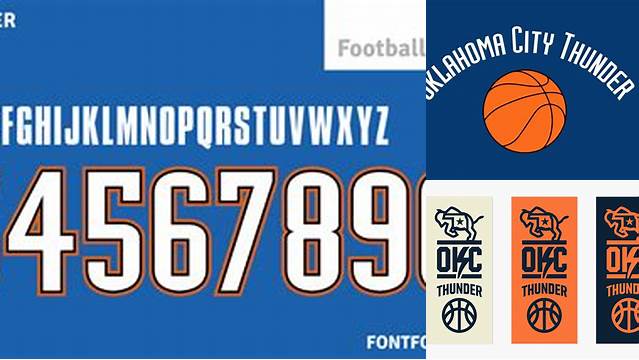
Alright guys, let's dive into the world of fonts, specifically the OKC Thunder font! If you're a fan of the Oklahoma City Thunder (and even if you aren't, their branding is pretty slick!), you've probably admired their typography. That bold, modern look is iconic, and a lot of people want to use it for their own projects. The good news? You can often find an OKC Thunder font free download! But before we get to that, let's talk about why this matters, the legal stuff, and how to actually use the font once you've got your hands on it. This article will serve as your go-to guide. We'll explore different variations, where to find them, and what you can (and can't) do with them. Ready to level up your designs with a touch of Thunder? Let's get started!
OKC Thunder Font: A Deep Dive into the Typography
So, what makes the OKC Thunder font so special? Well, it's more than just a font; it's a piece of the team's identity. The font is carefully chosen to represent the team's energy, dynamism, and modern approach. It's usually a sans-serif font, which gives it a clean, contemporary feel. You'll notice it on everything from the team's jerseys and merchandise to their website and promotional materials. The specific font used by the Thunder might not always be a completely unique, custom-made font. It could be a variation of a commercially available font, or a heavily customized version. The key is that the overall aesthetic aligns with the team's brand. Understanding the specifics can be a journey in itself. It's a study in graphic design. The choices that a team like the Thunder make about their font tell you a lot about them, about their identity and their message. This is why it's important to consider the branding implications of the font choice, whether using it for personal or commercial use. The font needs to communicate the same things that the team itself does.
When we talk about the OKC Thunder font, we're often referring to something that's bold, often with rounded edges or geometric shapes, that's designed to stand out and look great on a screen or on a physical product. The font family often features a range of weights, allowing for flexibility in design. You might see a heavier weight used for headlines and a lighter weight for body text. The selection of the right weight is critical, as is the right spacing, to ensuring readability. The team might use a particular font for the main text, and complement it with a secondary font for smaller details. This kind of layered approach is a sign of a well-thought-out branding strategy. If you're looking to create graphics inspired by the Thunder, paying attention to these details is super important. It's not just about the letters; it's about how those letters work together to create a cohesive visual experience. Think about the kerning (the space between letters), leading (the space between lines), and the overall feel that the font evokes. Does it feel fast and dynamic? That's the goal. It's about creating a look and feel that screams “Thunder!”
If you want to truly capture the essence of the team, you'll need to consider all the elements, from the font itself to the color scheme, imagery, and overall design style. The best designers use the font as a starting point, incorporating it into a broader design framework that creates a memorable and unified look and feel. So, while getting the OKC Thunder font free download is a good start, remember that the ultimate goal is to use it creatively to express the team's spirit in your own work. This is where your own creativity comes into play! Don't be afraid to experiment with different layouts and combinations of text to see what works best. Make sure you are also following any licensing restrictions that might be in place. If you're careful and creative, you can really leverage the power of the Thunder's visual identity to create some awesome stuff.
Thunder's Font Characteristics
The OKC Thunder font is typically characterized by its modern, bold, and often slightly rounded or geometric design. These fonts are designed for legibility and visual impact, making them ideal for branding and headlines. These fonts often have these features:
- Bold Weight: The font weight tends to be heavy to ensure clear visibility, especially when used at a larger scale or in the context of sports branding.
- Sans-Serif: The font typically lacks serifs (the small strokes at the ends of the letters), conveying a clean, modern feel. This choice complements the team’s contemporary image.
- Geometric Shapes: The design often incorporates geometric shapes, enhancing the font’s modern look and feel.
- Rounded Edges: Many versions use rounded corners, adding a touch of softness and approachability.
- Consistency: The design is consistent across all characters, creating a cohesive look.
- Readability: The font is designed for easy reading at various sizes, ensuring that the message is clear regardless of the application.
- Versatility: The font family often includes different weights (e.g., regular, bold, italic), allowing flexibility in design.
These characteristics work together to create a font that effectively communicates the energy, dynamism, and modern approach of the OKC Thunder brand.